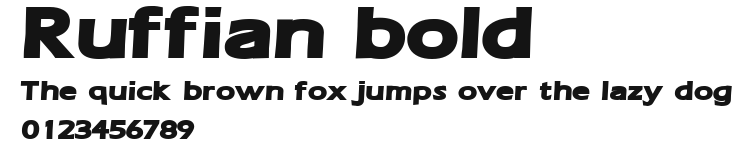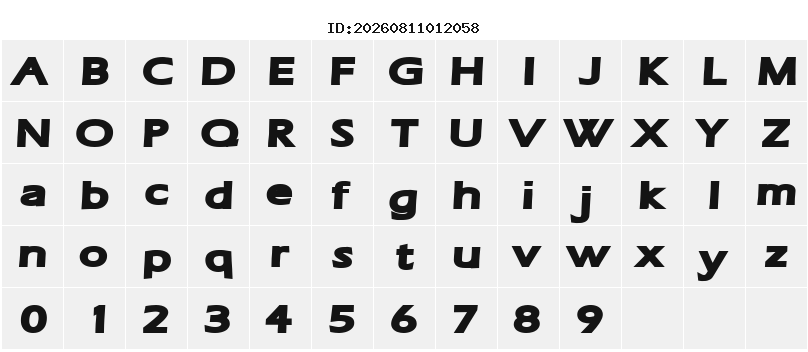
• Font Name: Ruffian bold
• Full Font Name: Ruffian bold
• Copyright: Generated by Fontographer 3.5, Andy Krahling, sunwalk
About Ruffian bold.ttf
Ruffian bold.ttf is a modern, elegant sans-serif font designed for ultimate readability and visual harmony. Perfect for branding, headlines, web design, and print materials.